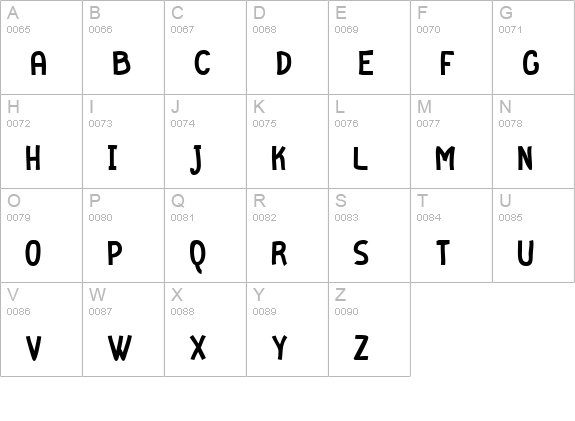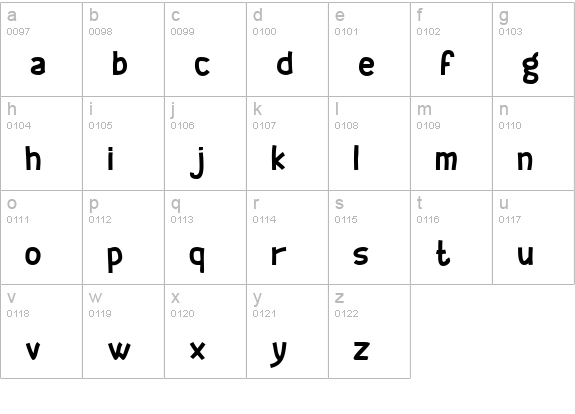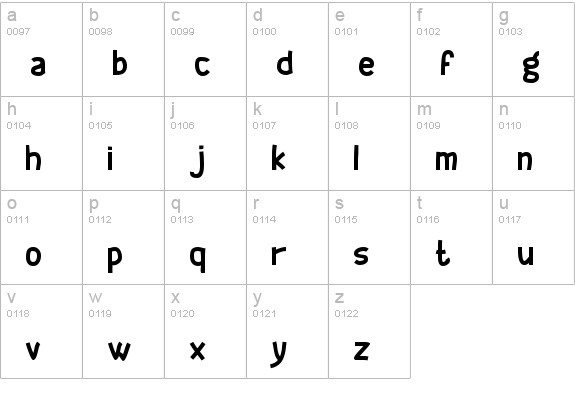
Geeker Font Details
Geeker font is a modern and stylish typeface that exudes a sense of creativity and innovation. With its sleek lines and geometric shapes, Geeker font is perfect for a wide range of design projects, from branding to social media graphics. This versatile font is sure to make your text stand out and grab attention. The best part about Geeker font is that it is completely free to download! You can easily access this unique typeface at FontsMarket.com and start using it in your projects right away. Don't miss out on the opportunity to add this eye-catching font to your design arsenal. Download Geeker font today and let your creativity shine!